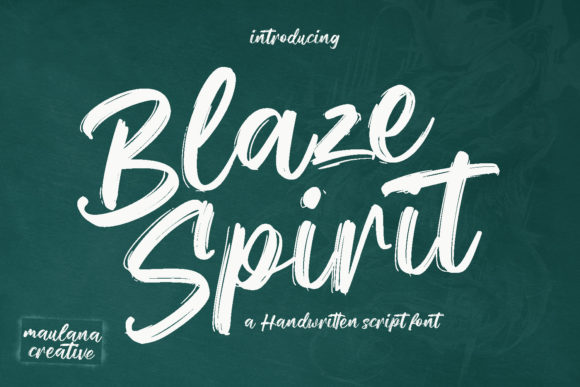
Introducing Blaze Spirit Font: Unleash Your Creativity with this Fancy Brush Script Font
In the world of typography, fonts play a crucial role in conveying the tone and personality of a brand, product, or creative project. With the numerous font options available, finding the perfect one that stands out from the crowd can be a daunting task. However, if you’re looking for a font that exudes creativity, playfulness, and sophistication, look no further than the Blaze Spirit Font. In this article, we’ll dive into the features, benefits, and uses of this stunning font, and explore how it can elevate your design work.
What is Blaze Spirit Font?
Blaze Spirit Font is a fancy brush script font designed to add a touch of elegance and whimsy to your creative projects. With its bold brush contrast stroke, fun character, and ligature features, this font is perfect for designers, artists, and crafty individuals looking to add a personal touch to their work.
Key Features of Blaze Spirit Font
- Bold Brush Contrast Stroke: The Blaze Spirit Font boasts a distinctive bold brush contrast stroke that gives it a unique and eye-catching appearance.
- Fun Character: The font features fun and playful characters that are sure to add a touch of personality to your designs.
- Ligature: The font includes ligature features that allow you to create extra creative and stylish text.
- Multilingual Support: The Blaze Spirit Font has multilingual support, making it suitable for a wide range of languages and projects.
How to Use Blaze Spirit Font
The Blaze Spirit Font is versatile and can be used for various design projects, including:
- Logo Design: Create stunning logos that stand out from the crowd with the Blaze Spirit Font.
- Social Media: Use the font to create engaging social media posts, graphics, and stories.
- Movie Titles: Add a touch of glamour to your movie titles, posters, and promotional materials.
- Book Titles: Use the font to create eye-catching book titles, covers, and typographic designs.
- Secondary Text Font: Pair the Blaze Spirit Font with sans or serif fonts to create a stunning visual hierarchy.
Tips and Tricks for Using Blaze Spirit Font
To get the most out of the Blaze Spirit Font, here are some tips and tricks:
- Experiment with font sizes: Play around with different font sizes to create visual interest and hierarchy.
- Pair with other fonts: Combine the Blaze Spirit Font with other fonts to create a unique and stylish typographic combination.
- Use ligatures: Take advantage of the font’s ligature features to add a touch of elegance to your text.
In conclusion, the Blaze Spirit Font is a fantastic addition to any designer’s font library. With its bold brush contrast stroke, fun character, and ligature features, this font is perfect for creating stunning designs that stand out from the crowd. Whether you’re working on a logo design, social media project, or book title, the Blaze Spirit Font is sure to unleash your creativity and take your designs to the next level.